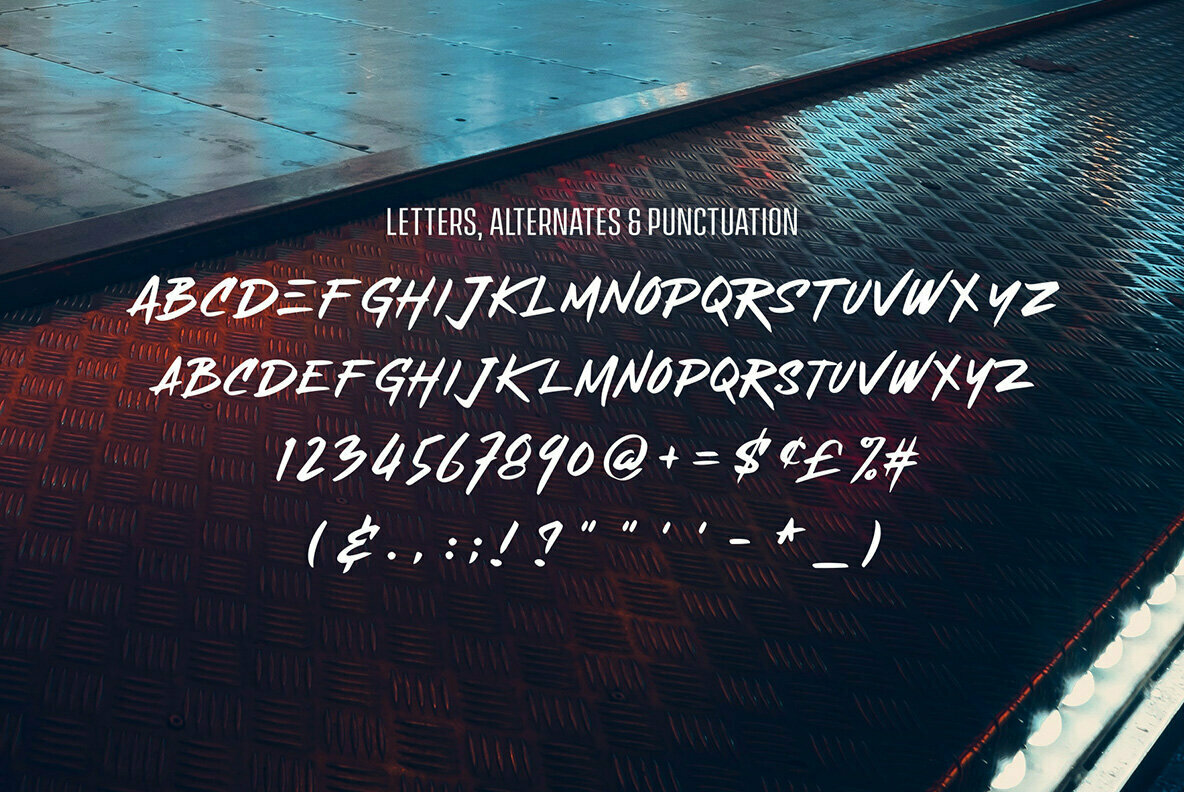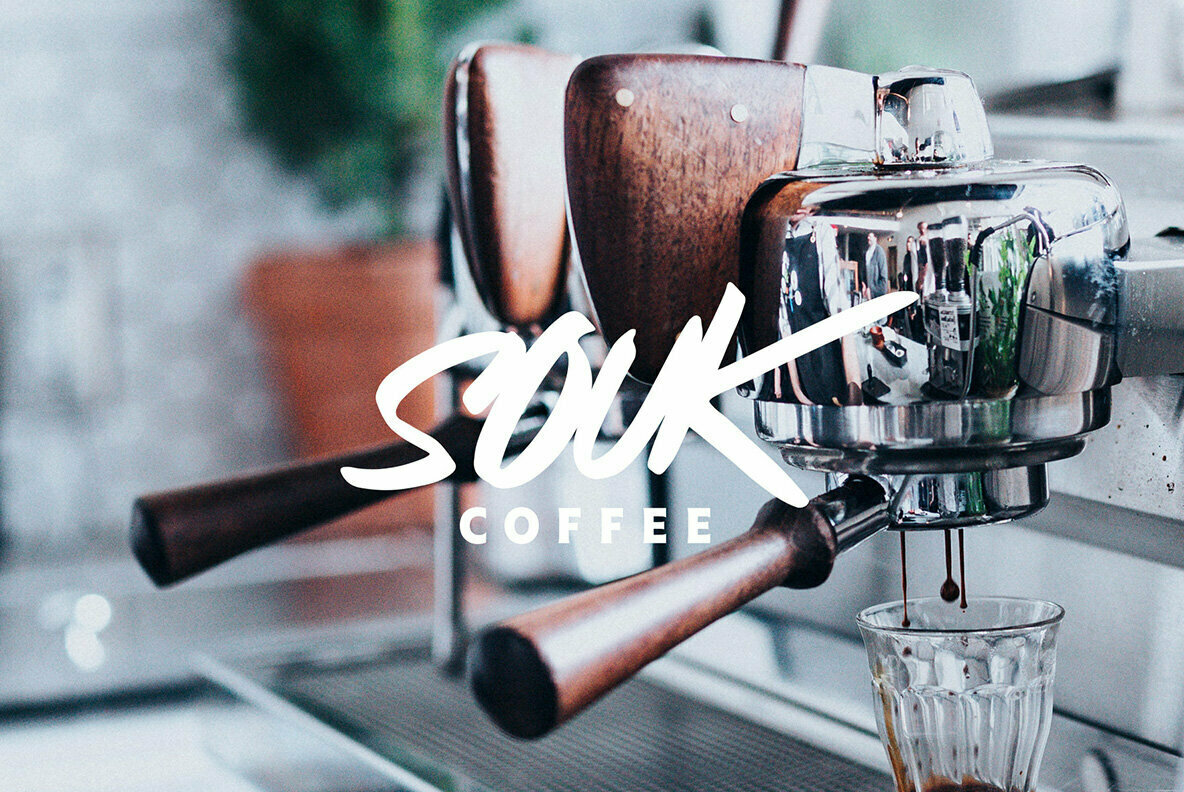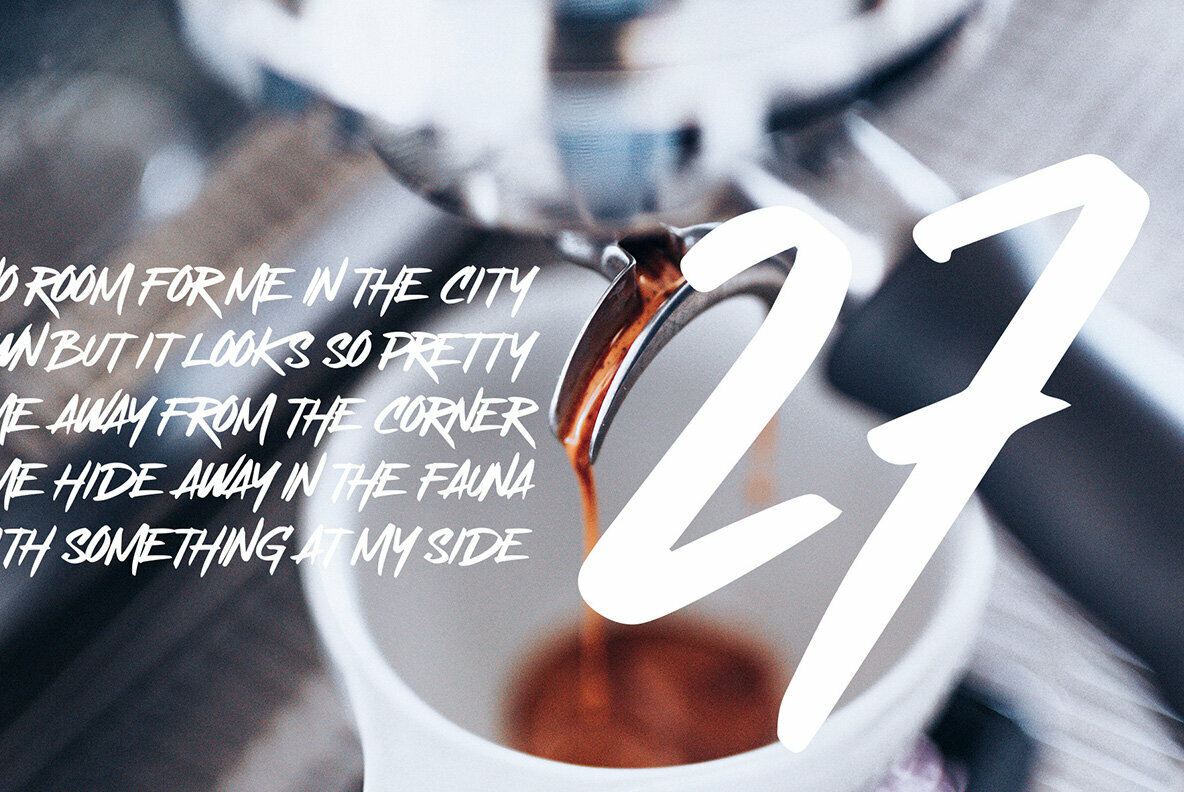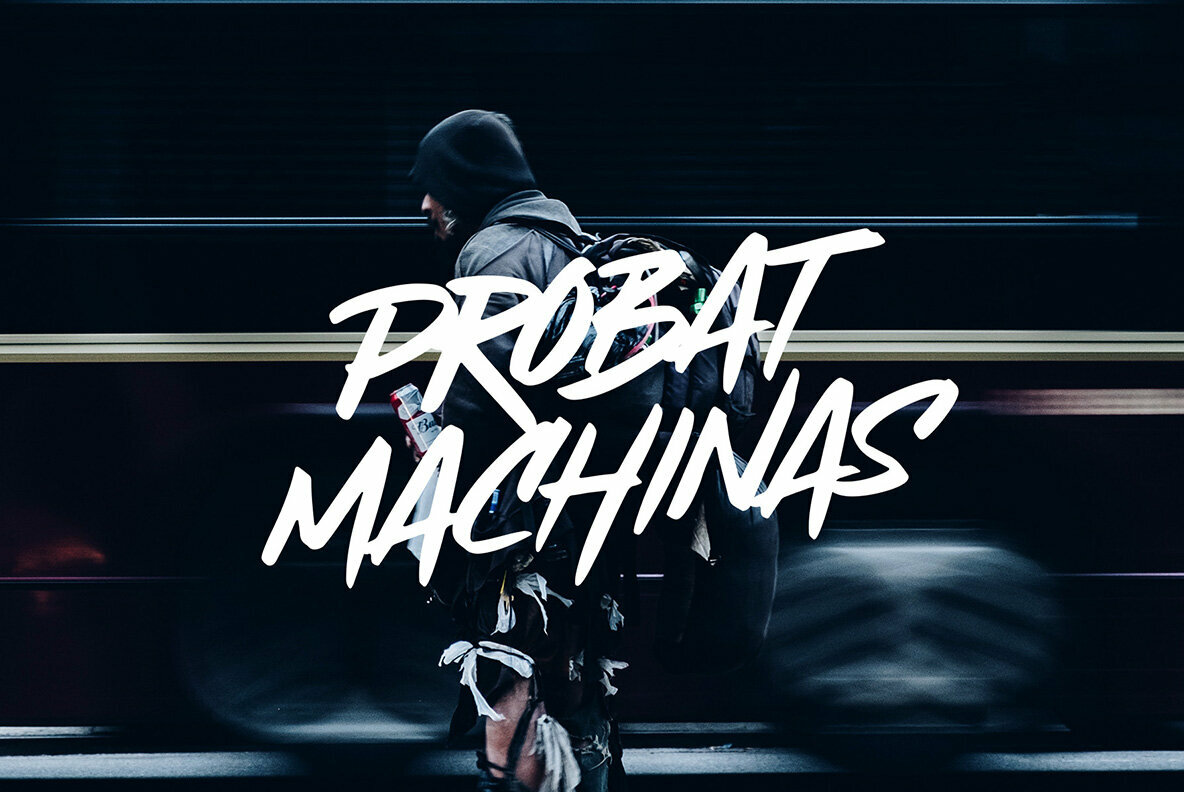
Roam Font
Roam Regular
Roam brings artistry to the forefront of design with its handmade essence and visually arresting brush strokes. This font captures attention with ease, thanks to its robust and catchy form that injects energy into any project. Roam is meticulously crafted for graphic designers seeking to create standout headlines. The font’s unique character shines through in logos, branding materials, and striking posters, all benefiting from its dynamic presence.Roam: Handmade Display Font With a Bold Brush Appeal